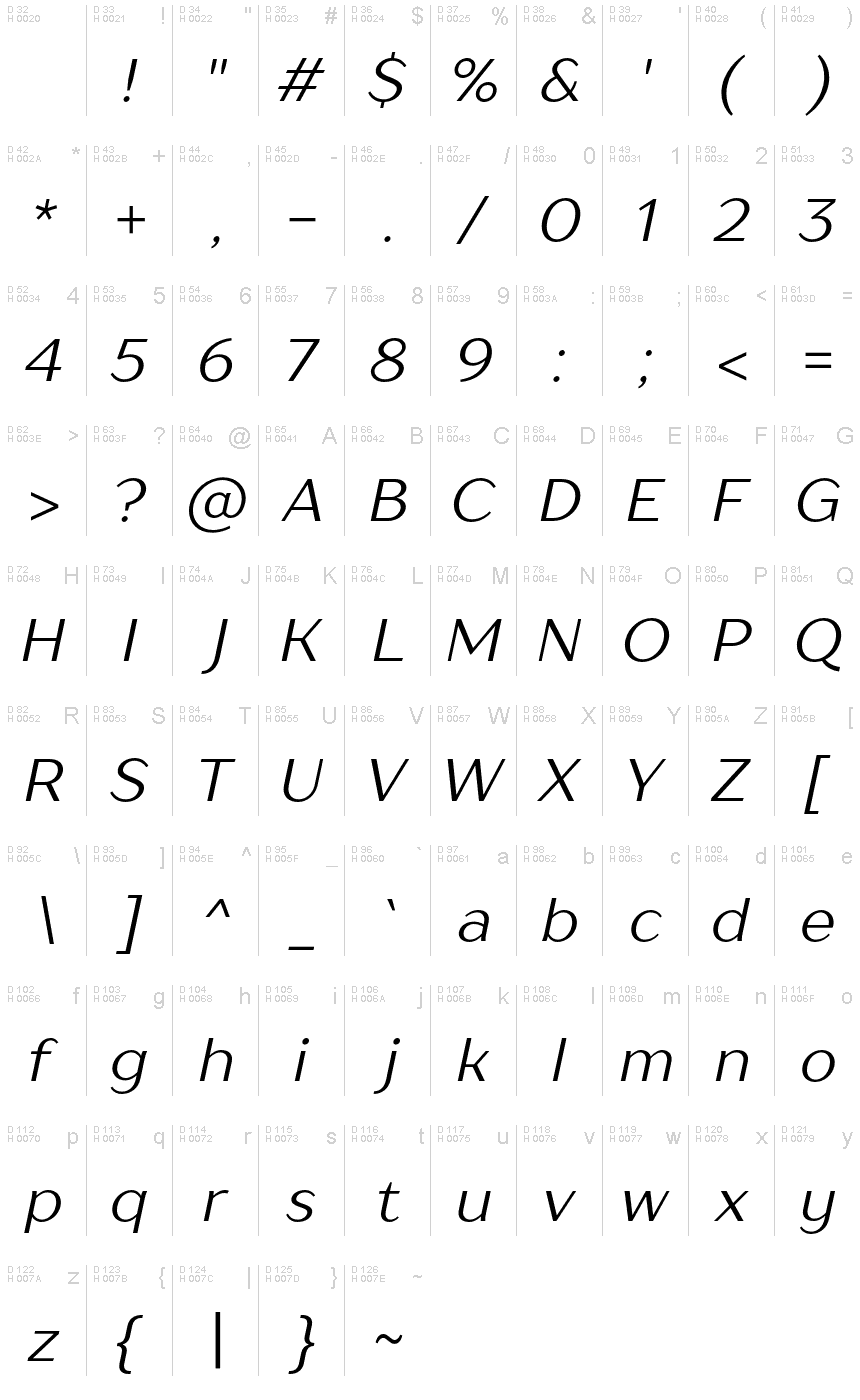
TT Drugs Trial Italic
TT Drugs Italic is a sleek and modern sans serif font that is perfect for projects that require a professional yet approachable touch. Its light weight adds an airy quality to text, making it ideal for body copy in magazines, websites, and marketing materials. The italic style gives it a hint of personality that can be used to create eye-catching headlines and subheadings. This font typeface is suitable for projects such as pharmaceutical branding or packaging design, as well as wellness blogs or medical publications where readability is key. Designed by TypeType Foundry, TT Drugs Italic is the perfect choice for any project that requires a contemporary and sophisticated look.
TT Drugs Trial